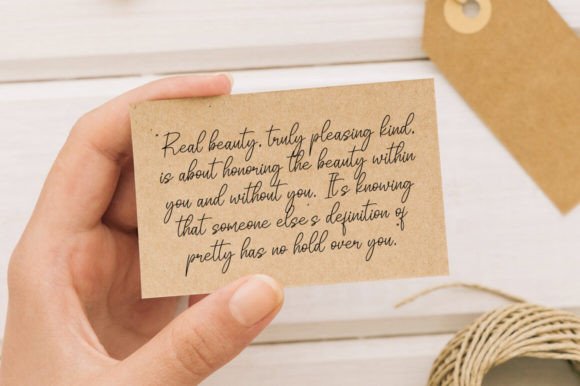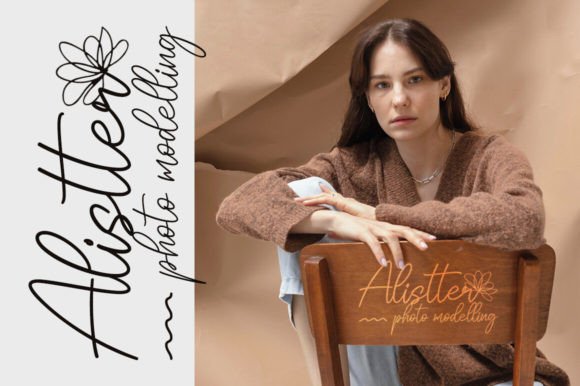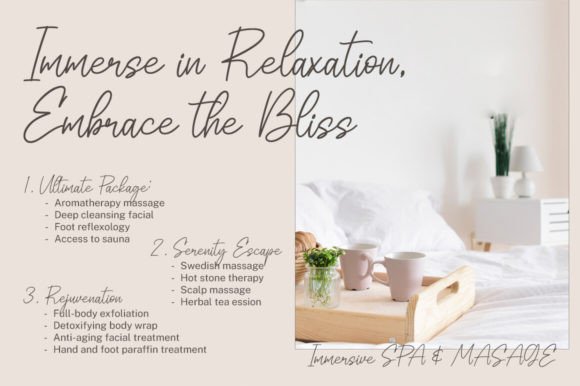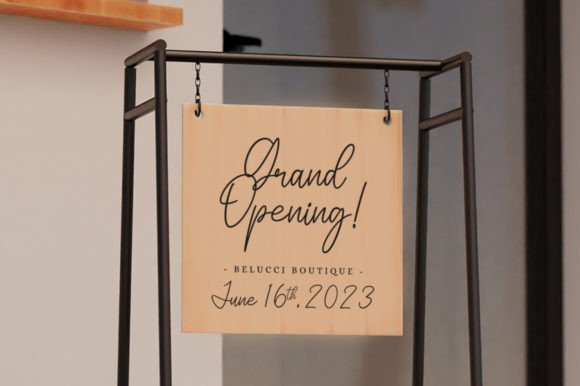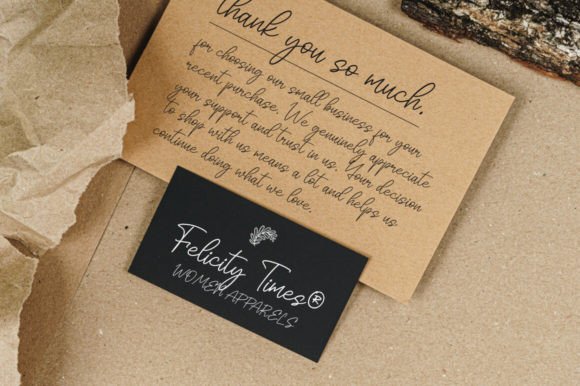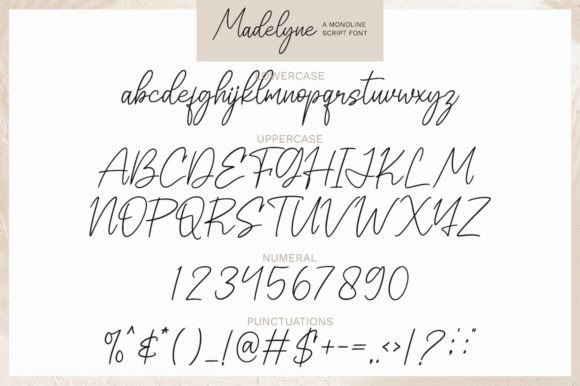
Introduction to Madelyne Font
As designers, we’ve all been there – staring at a blank canvas, struggling to find the perfect font to bring our creative project to life. But what if I told you that the solution to this eternal design dilemma lies in a beautiful, handwritten font that’s been making waves in the design community? Say hello to the lovely Madelyne Font, a timeless and versatile font that’s perfect for creating eye-catching logos, branding, and quotes.
With its elegant and flowing script, Madelyne Font is a design resource that’s hard to resist. Whether you’re working on a high-end branding project or a personal creative endeavor, this font is sure to add a touch of sophistication and personality to your work. And the best part? It’s available for free download, making it an accessible and valuable addition to any designer’s toolkit.
Key Features of Madelyne Font
- High-quality design resource suitable for creative projects, with a transparent background for versatility.
- Madelyne Font offers a unique blend of modern and elegant styles, perfect for a wide range of applications.
- Comes in a single weight, ideal for creating a cohesive and polished look in your design project.
- Each character is meticulously crafted with attention to detail, ensuring a high level of quality and readability.
Honest Review: Madelyne Font
As a designer, I’m always on the lookout for high-quality design resources to elevate my creative projects. The Madelyne Font is one such resource that caught my attention, and I’m excited to share my thoughts on it.
What works well: ✨ The Madelyne Font offers a beautiful, elegant design that’s perfect for titles, headings, and other prominent text elements. The font is highly legible, making it easy to read even in small sizes. I also appreciate the transparent background, which makes it easy to layer over images and other design elements.
- Legible font that’s easy to read in small sizes
However, I do have a few limitations to mention: ⚠️ The font is limited to a single style, which might not be ideal for designers who need a more versatile font. Additionally, the font is not suitable for body text, as it can be a bit too ornate for large blocks of text.
Tips for Getting the Most Out of Madelyne Font
To get the most out of Madelyne Font, use it in combination with other high-quality design elements, such as graphics and images. This will help to create a cohesive and visually appealing design.
Common Use Cases for Madelyne Font
Madelyne Font is perfect for use in a variety of creative projects, including blog posts, social media graphics, and marketing materials. It is also a great choice for use in presentations and reports.